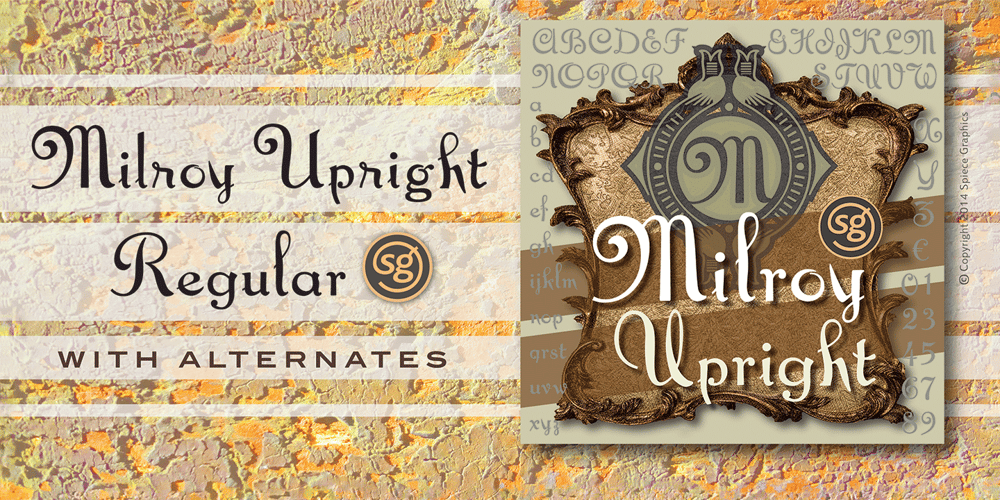
Milroy Upright SG
Milroy Upright SG font
Milroy Upright SG Font Family was designed by Max Rosenow, Julius Schmol and published by Spiece Graphics. Milroy Upright SG contains 1 styles and family package options. As a beautiful yet eccentric unconnected script, Milroy Upright SG Regular can be a refreshing alternative to the formal upright scripts seen on so many anniversary and wedding announcements today. This nineteenth century classic was designed by Max Rosenow and Julius Schmol for Barnhart Brothers & Spindler in 1895. Milroy Upright was originally known as Oliphant. It was later renamed Advertisers Upright Script in 1925. This new version, Milroy Upright, contains many new alternative characters including a modified cap X and cap Z, a two-story lowercase g, and a matching set of oldstyle figures. Milroy Upright SG Regular is now available in the OpenType format. Some new characters have been added to this OpenType version including stylistic alternates, discretionary ligatures, and oldstye figures. Advanced features currently work in Adobe Creative Suite InDesign, Creative Suite Illustrator, and Quark XPress. Check for OpenType advanced feature support in other applications as it gradually becomes available with upgrades.